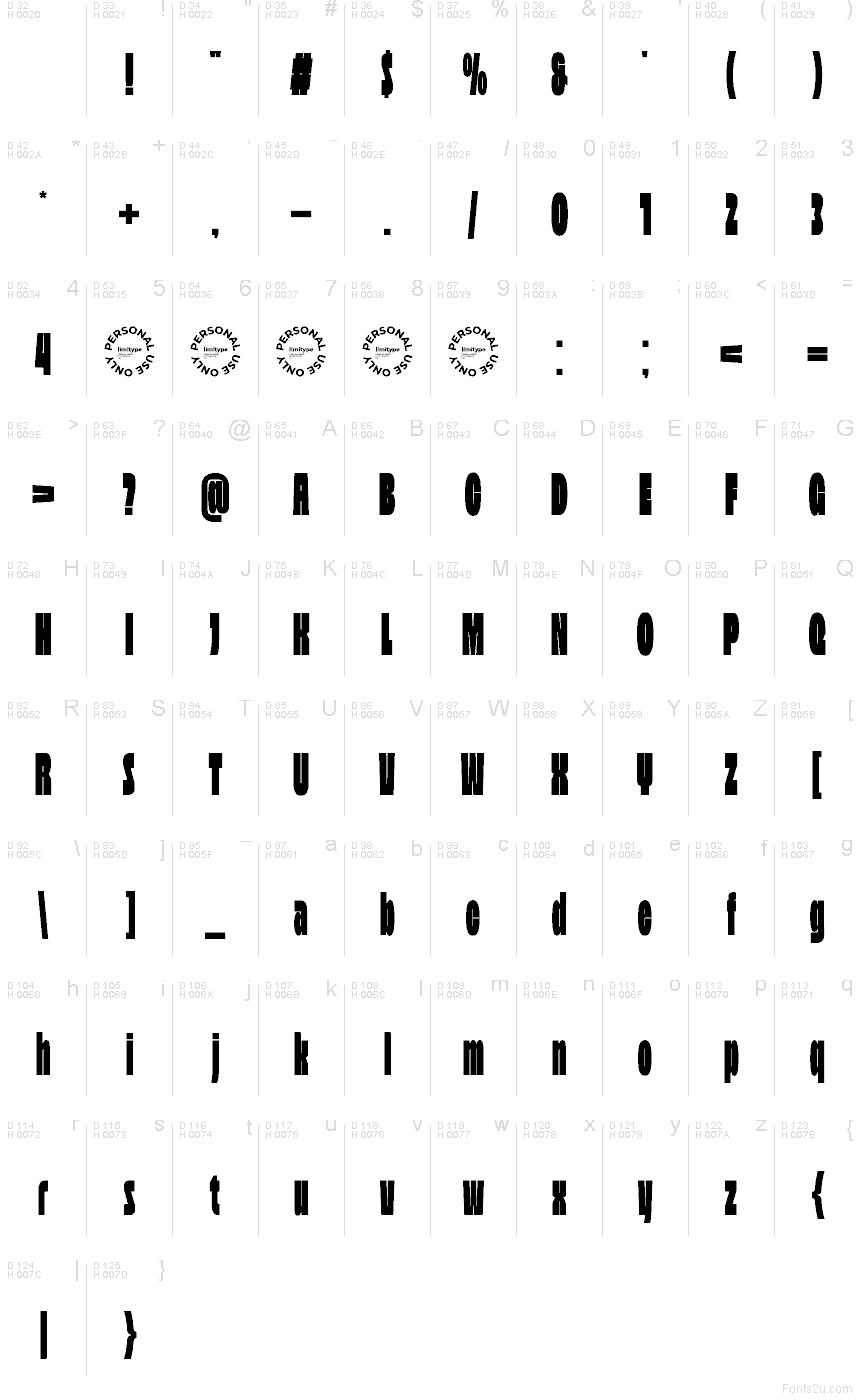
Revoid Bold by Limitype is a free ultra-condensed display sans with towering letters and emphatic weight. Its rounded sides bow outward and make the narrow forms look slightly inflated. The spacing feels deliberately compressed.
As a forceful typographic block, it can turn poster titles or music event graphics into dense vertical features. That construction suits sports merchandise and entertainment packaging, where blunt impact matters. For branding, the squeezed proportions can become a recognizable product mark rather than ordinary lettering.